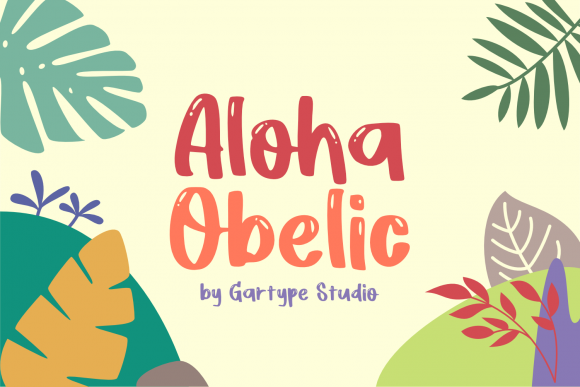
Aloha Obelic Font: The Perfect Blend of Trendiness and Readability
In the world of typography, fonts play a crucial role in making your designs stand out. With the vast array of fonts available, it can be overwhelming to choose the right one that captures the essence of your message. However, if you’re looking for a font that exudes a perfect blend of trendiness, readability, and jollity, look no further than the Aloha Obelic font. This cool and bubbly display font is designed to bring your designs to life, and in this article, we’ll explore what makes it so unique.
Aloha Obelic Font: An Overview
Aloha Obelic is a display font that boasts a distinctive personality. Its design is centered around being readable, down-to-earth, and jolly, making it an excellent choice for a wide range of design projects. Whether you’re working on a branding campaign, creating social media graphics, or designing a website, Aloha Obelic is sure to make a lasting impression.
One of the standout features of Aloha Obelic is its perfect balance of trendiness and classic appeal. It manages to be both modern and timeless, making it a versatile font that can be used in various contexts. The font’s design is carefully crafted to ensure that it’s easy to read, even at smaller sizes, which is essential for ensuring that your message is communicated effectively.
Key Features of Aloha Obelic Font
- Readable: Aloha Obelic is designed to be easy to read, making it perfect for use in body text, headings, and titles.
- Down-to-Earth: The font’s earthy tone gives it a friendly and approachable feel, making it ideal for brands that want to connect with their audience on a personal level.
- Jolly: Aloha Obelic’s playful and bubbly personality makes it perfect for designs that require a touch of whimsy and fun.
- Trendy: The font’s modern design ensures that it stays on-trend, making it suitable for designs that require a contemporary feel.
The Many Uses of Aloha Obelic Font
Aloha Obelic’s versatility makes it an excellent choice for a wide range of design projects. Here are some of the many uses of this fantastic font:
- Branding: Use Aloha Obelic to create memorable logos, business cards, and letterheads that reflect your brand’s personality.
- Social Media Graphics: Create engaging social media graphics, such as Facebook posts, Twitter headers, and Instagram stories, that showcase your brand’s unique voice.
- Web Design: Use Aloha Obelic as a display font or body text to create visually appealing and user-friendly websites.
- Advertising: Make your advertisements stand out with Aloha Obelic’s eye-catching design.
- Packaging: Use Aloha Obelic to create eye-catching packaging designs that reflect your brand’s personality.
Tips for Using Aloha Obelic Font
To get the most out of Aloha Obelic, here are some tips to keep in mind:
- Use it as a display font: Aloha Obelic is perfect for use as a display font, but it can also be used as a body text font for smaller text.
- Experiment with colors: Aloha Obelic looks great in a variety of colors, so don’t be afraid to experiment and find the perfect hue for your design.
- Pair it with other fonts: Aloha Obelic can be paired with other fonts to create a unique and visually appealing design.
- Keep it simple: Don’t overcomplicate your design. Aloha Obelic’s simplicity is part of its charm, so keep your design clean and concise.
The Benefits of Using Aloha Obelic Font
There are many benefits to using Aloha Obelic in your designs. Here are some of the most significant advantages:
- Unique personality: Aloha Obelic has a distinctive personality that sets it apart from other fonts.
- Improved readability: Aloha Obelic’s design ensures that your text is easy to read, even at smaller sizes.
- Increased engagement: Aloha Obelic’s playful and bubbly personality can help increase engagement and interaction with your audience.
- Flexibility: Aloha Obelic can be used in a wide range of design projects, from branding to web design.
In conclusion, Aloha Obelic is a fantastic font that offers a perfect blend of trendiness, readability, and jollity. Its versatility makes it an excellent choice for a wide range of design projects, from branding to web design. With its unique personality, improved readability, and increased engagement, Aloha Obelic is sure to make your designs come alive. So why not give it a try and see the difference it can make in your designs?